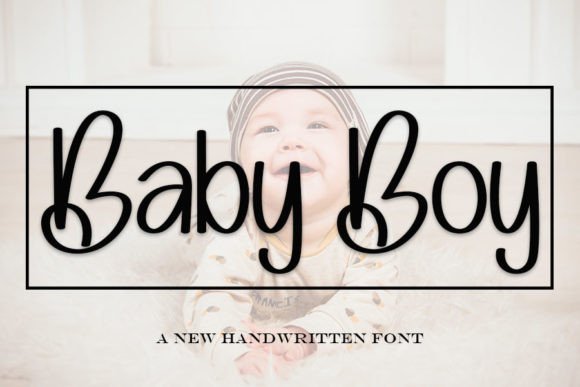
Discover the Timeless Elegance of the Baby Boy Font
Do you ever find yourself staring at a blank page, waiting for that perfect font to come along and spark your creativity? For designers, this moment is all too familiar. It’s the moment when everything clicks, and your project starts to take shape. And for those who have been there, we have exciting news – we’ve found a font that’s sure to fall in love with.
Meet the Baby Boy Font, a beautiful handwritten font that exudes elegance and sophistication. This font is perfect for designers who want to add a touch of whimsy and charm to their projects. With its unique, timeless style, the Baby Boy Font is a valuable addition to any designer’s toolkit. Whether you’re working on a wedding invitation, a nursery decor, or a children’s book, this font is sure to make your designs stand out.
Baby Boy Font Key Features
- Unique Characteristics: This font features a playful, cursive design with rounded edges and smooth connections, making it ideal for children’s books, nursery decorations, and other projects that require a friendly and approachable tone.
Baby Boy Font Review
Overall, I found the Baby Boy Font to be a charming and playful addition to any design project. ✨ It has a classic, whimsical feel that’s reminiscent of children’s storybooks and nursery decor. The font’s rounded edges and soft lines make it perfect for projects that require a touch of warmth and personality.
The font comes in a range of weights, from light to bold, which allows for a good amount of flexibility in terms of usage. ✨ I also appreciate the font’s high x-height, which makes it easy to read and understand, even at smaller sizes.
While the Baby Boy Font is a solid choice for many projects, there are a few limitations to consider. ⚠️ For one, the font may be too playful for more serious or formal designs, and its rounded edges may not be suitable for projects that require a more modern or edgy feel.
Overall, I’d say the Baby Boy Font is a great choice for designers who want to add a touch of whimsy and personality to their projects. While it may not be the best fit for every project, it’s a solid option for those looking for a classic, childlike feel.
- Classic, playful feel
- Range of weights from light to bold
- High x-height for easy readability
- May be too playful for formal designs
- Not suitable for modern or edgy designs
Use the Baby Boy Font in conjunction with other playful fonts to create a whimsical design.
Experiment with different font sizes and colors to add visual interest to your design.
The Baby Boy Font is commonly used in:
- Baby shower invitations and decorations.
- Children’s birthday party invitations and decorations.
- Children’s book covers and illustrations.